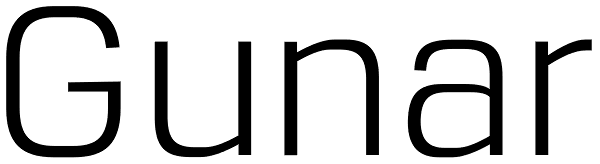
Gunar
A geometric sans serif with a square chiseled appearance. Precise curves are met with straight lines and tapered angles to produce a fresh, technical typeface. It’s large x-height and neutral width give it good legibility at small point sizes. These...